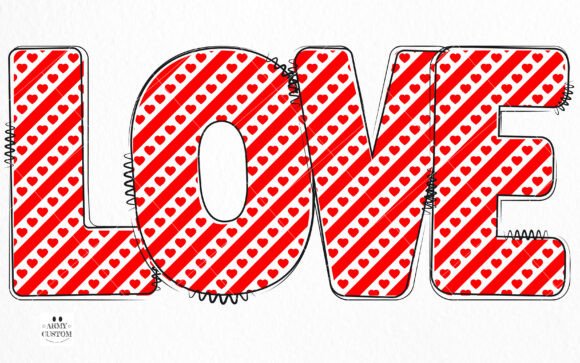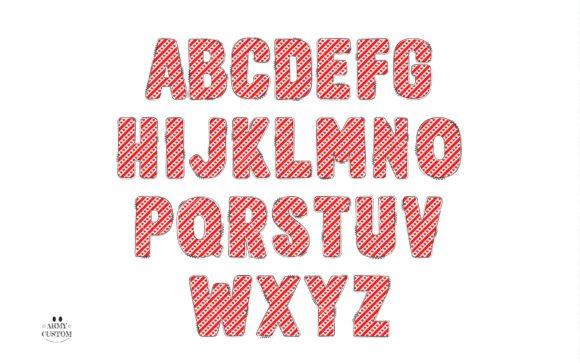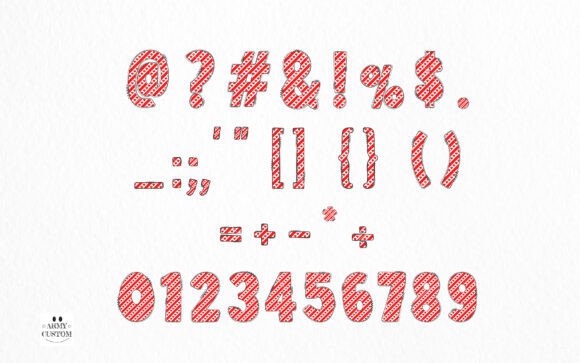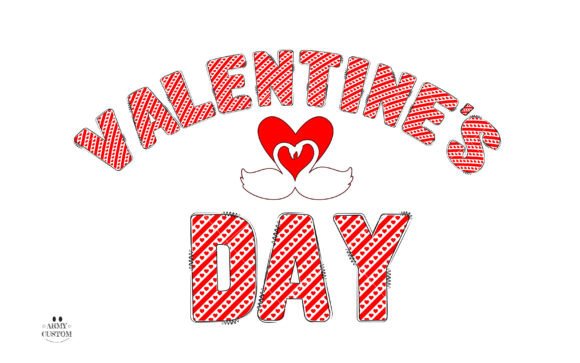
Introduction to Love Valentine’s Font Font
Fonts play a crucial role in design, and the Love Valentine’s Font font is a typeface that brings both character and versatility to any project. Whether you’re working on a branding project, a website, or a print design, the Love Valentine’s Font font offers a unique style that can elevate your work.
Experience the essence of romance with the captivating โValentineโs Army Alphabetโ font.
Each line of this unique doodle font weaves a romantic narrative, creating a stunning tool for communicating your heartfelt sentiments on the day committed to love Richly adorned with intricate heart patterns in each letter, this enchanting font reaches right into the core of your emotions.
Key Features of Love Valentine’s Font Font
- โ High-quality typeface designed for professional use
- โ Includes a wide range of glyphs and characters
- โ Ideal for logos, branding, websites, and print
Why Choose Love Valentine’s Font Font?
The Love Valentine’s Font font is more than just a typeface โ it’s a design tool that helps you communicate your message with style and clarity. Its unique character set and versatile design make it suitable for a wide range of applications, from elegant invitations to bold headlines.
With its carefully crafted letterforms and balanced proportions, the Love Valentine’s Font font ensures readability and visual appeal across all mediums.
What makes Love Valentine’s Font font special?
The Love Valentine’s Font font stands out with its unique design, exceptional readability, and versatility across various design applications.